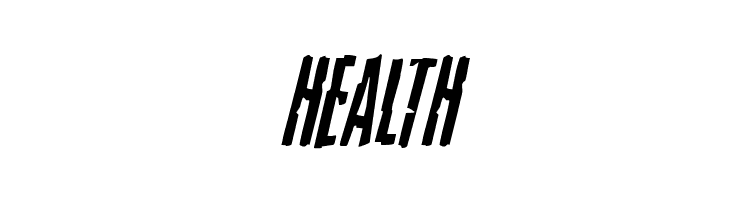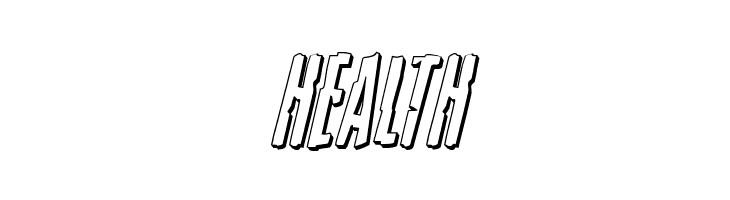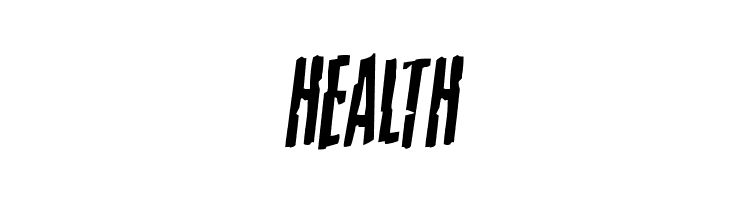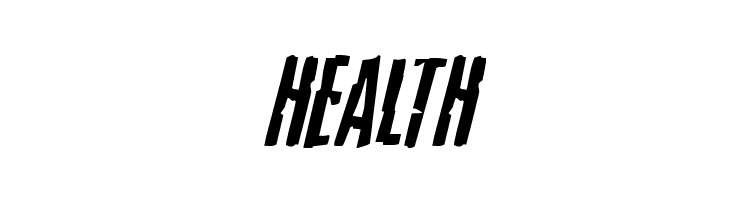
A playful, casual handwritten font with rounded edges and consistent height.
Spiky, bold display font with chaotic, energetic style.
A playful, bird-themed decorative display font with bold, abstract shapes.
A bold, classic serif font with high contrast and elegant details.
A high-contrast serif font with elegant, sharp serifs and a classic style.
A bold, weapon-themed decorative font with gothic influences.
A bold, distressed font with a grunge texture and consistent character width.
A bold, thorny font with sharp, jagged edges for a striking and aggressive look.
A jagged, thorn-like font with a dark, chaotic aesthetic.
A bold, distressed font with a rugged, grunge-like appearance.
A decorative Halloween-themed font styled as caution signs.
A playful, bubbly font with thick, rounded shapes and a whimsical style.
A bold collection of pictographic symbols ideal for gaming and thematic designs.
A jagged, thorn-like font with an edgy, rebellious style.
A bold, angular font with sharp, thorn-like edges for a fierce look.
An edgy, thorn-inspired font with intricate, jagged details.
A rugged, distressed font with jagged edges and a chaotic, intense style.
A jagged, edgy font with thorn-like strokes, perfect for intense and rebellious designs.
A bold, distressed font with a rugged, volcanic texture.
A bold, distressed font with a grunge, stencil-like appearance.
A decorative, Halloween-themed font with bold, sign-like characters.
A decorative font with thorn-like, jagged edges for a wild and dramatic look.
A collection of historical symbols used for communication by itinerant workers.
A bold, jagged font with a horror-inspired, hand-drawn style.